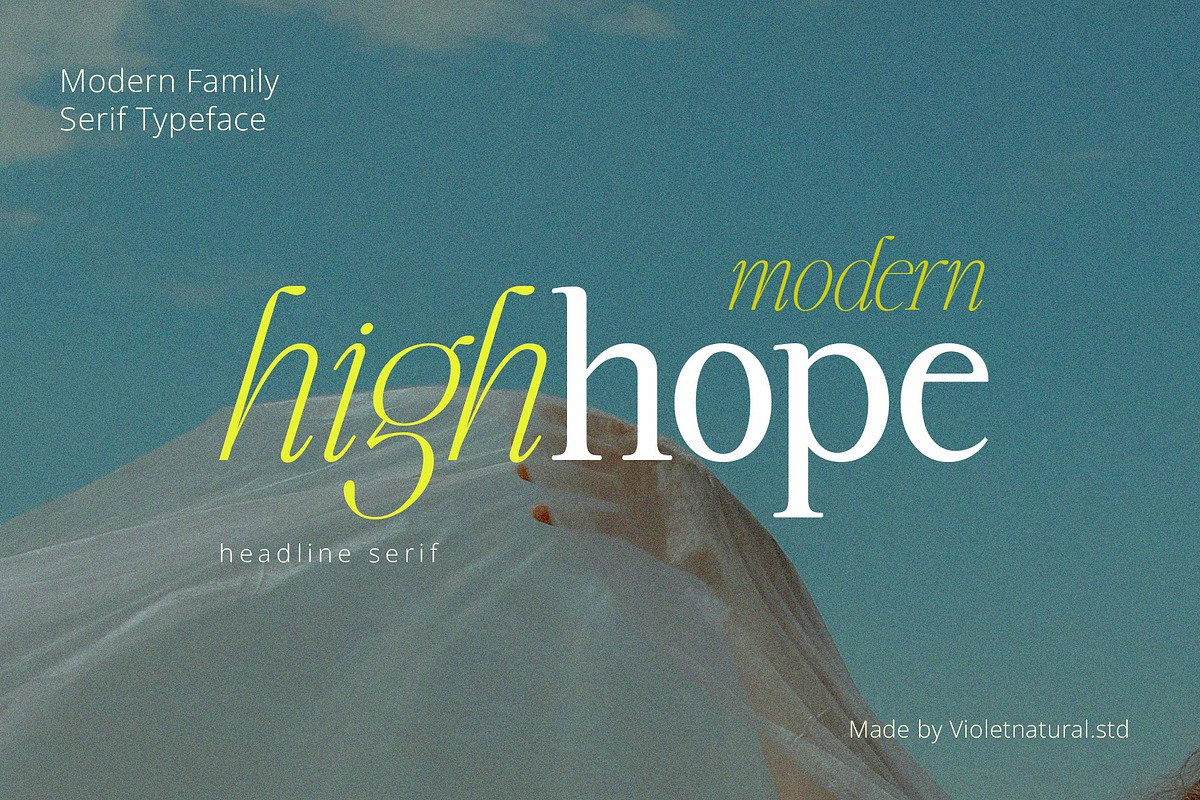
Highhope Font Family
Highhope Font Family – is a premium-quality font developed to enhance your work with a polished, modern, and visually elevated look. This font has a classic retro style but is packaged in a modern way to make your work projects more attractive and aesthetic.